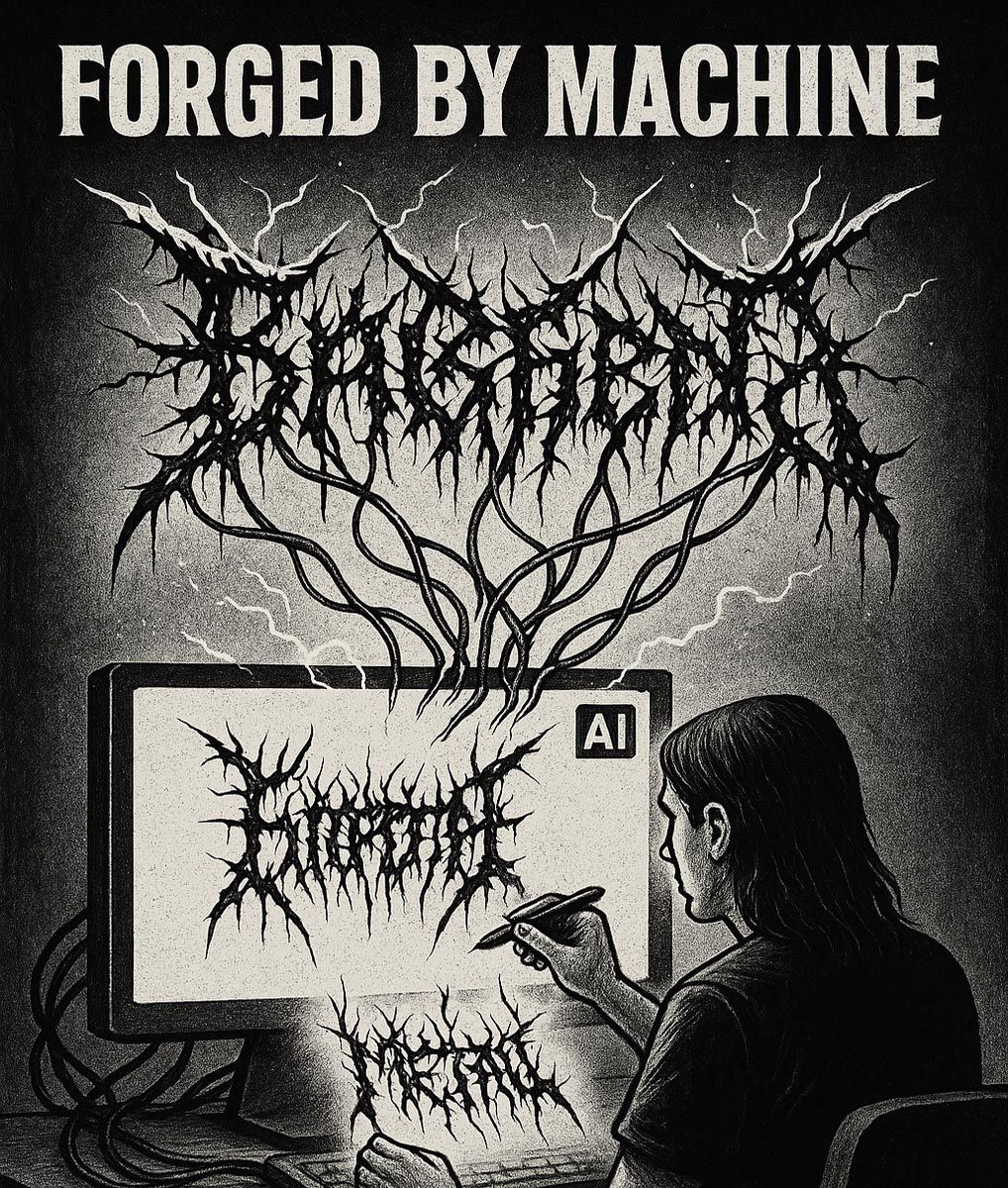
Designing a metal logo is an art form—complex, aggressive, emotional, and often cryptic. From thorn-covered letters to hand-drawn chaos, it takes deep visual instinct to reflect the sound and soul of a band.
But in the era of creative technology, can AI help us design brutal, authentic metal logos?
The answer isn’t about replacing artists—it’s about empowering them.
⚙️ 1. AI Is a Tool—Not a Threat
AI doesn’t kill creativity. When used right, it unlocks new ways to create.
For metal logo designers, AI can:
- Generate rough compositions or symmetry templates
- Suggest visual metaphors (skulls, thorns, forest forms, bones)
- Explore styles: black metal, death metal, tribal, horror-inspired
- Speed up brainstorming and iteration
The real artist is still you—AI just handles the heavy lifting.
🎨 2. Concept First, Prompt Later
A good metal logo needs:
- Identity (reflect the band’s name or meaning)
- Style (genre match: black metal vs deathcore vs sludge)
- Symbolism (occult, nature, decay, rebellion)
Before typing a prompt, know the concept. Use AI to visualize:
- Symmetrical structures
- Organic textures
- Unique letter distortion
Example prompt:
“Symmetrical black metal band logo, inspired by frost-covered branches and ancient ruins, dripping ink style, black and white”
💻 3. Best AI Tools for Metal Logo Creation
Here are popular platforms used by metal logo artists:
- MidJourney / DALL·E: Great for generating textured ideas and horror-inspired aesthetics
- Runway ML: Good for converting sketches into stylized versions
- Photoshop (with AI fills): Clean up, adjust layout, or invert contrasts
- Vectorizer.ai / Illustrator: For converting sketches to vector logos
Use them as idea factories, then polish the result with your design skills.
🧛 4. Advantages of Using AI in the Logo Process
- Faster iteration: Test 10 ideas in an hour.
- Inspiration booster: Break creative blocks.
- Client collaboration: Show mockups faster.
- Detail assistance: Add ornaments, balance shapes.
And if you’re just starting out—AI can help build confidence before you commit to a final design.
⚠️ 5. What AI Can’t Do (Yet)
AI can’t:
- Understand cultural or genre context deeply
- Replace handcrafted charm or personal symbolism
- Handle typography perfectly without editing
Most AI metal logos are just “cool shapes” until a human gives it meaning, purpose, and refinement.
AI creates the bones. You give it the soul.
🕯️ 6. Respect the Craft, Not Just the Output
Using AI doesn’t mean cutting corners. It means:
- Respecting metal visual tradition
- Honoring the genre’s roots (black metal forests, corpsepaint, gothic chaos)
- Bringing fresh eyes to a dark tradition
Combine AI with your own:
- Hand-drawn textures
- Lettering edits
- Photoshop layering
Conclusion: Embrace the Machine, Keep the Spirit
AI won’t replace true metal designers. But it can be your apprentice—helping you sketch faster, push boundaries, and keep up with demands.
So go ahead:
- Explore new textures
- Generate chaotic symbols
- Draft wild symmetry
Just remember—a brutal logo isn’t made by a machine. It’s born from vision, rage, and purpose.